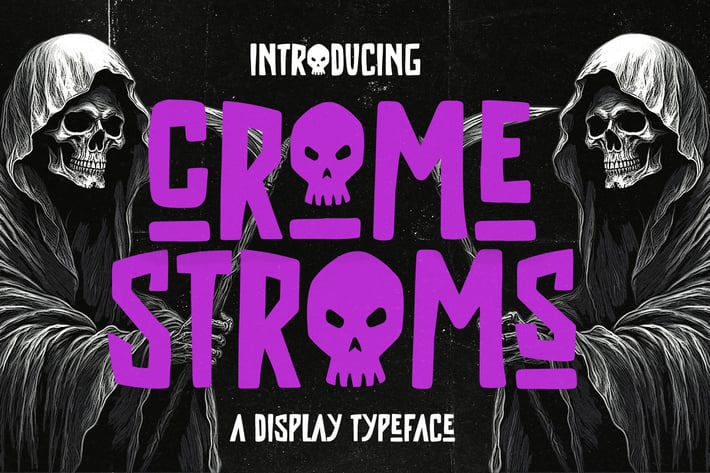
Crome Stroms Horror Display Typeface
Crome Stroms Horror Display Typeface a distinct, highly detailed, and chic Blackletter font.
It would make a great choice for exquisite retro-urban designs, tattoo business branding, logos, vintage designs, movie, poster, apparel, illustration, and more.